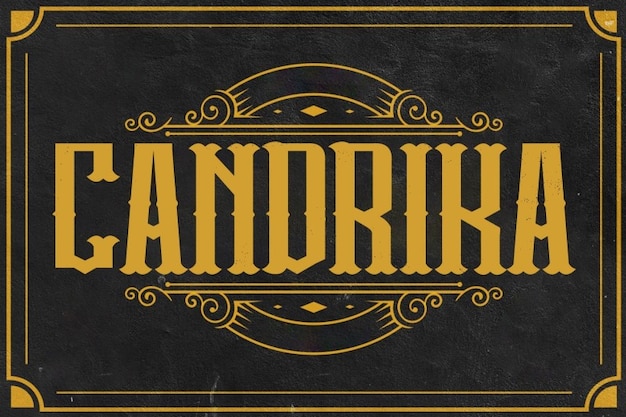
Candrika
Candrika Font
"Candrika" is a charming vintage font that captures the essence of classic whiskey labels. With its elegant curves and retro flair, it evokes a sense of nostalgia, reminiscent of old-fashioned distilleries. Perfect for branding, packaging, and artisanal designs, this font brings a touch of sophistication and warmth, making any project feel timeless and refined, ideal for whiskey lovers and connoisseurs.